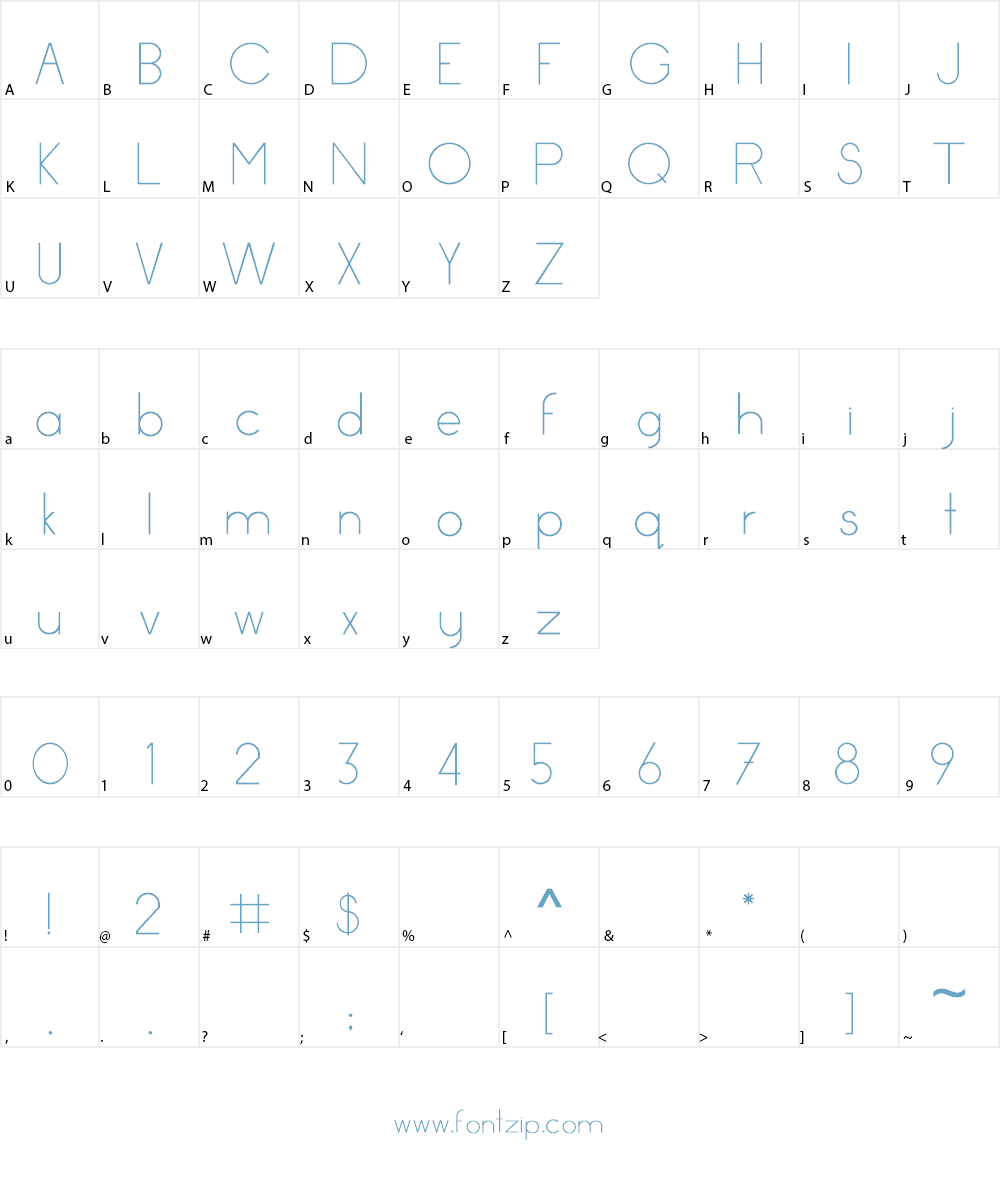
Hypeface was designed with perfection in mind. Sticking to geometric ideas to influence the forms of the characters. It is a response to the concept of hyper reality and our inability to seperate what is real and what is not. This font is not perfect, but neither is life.